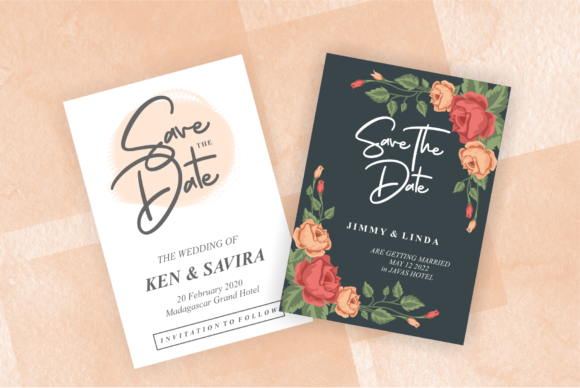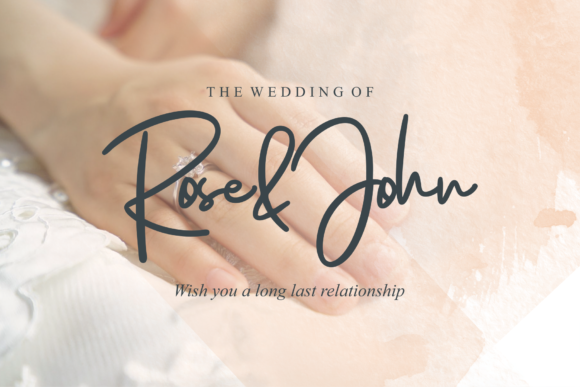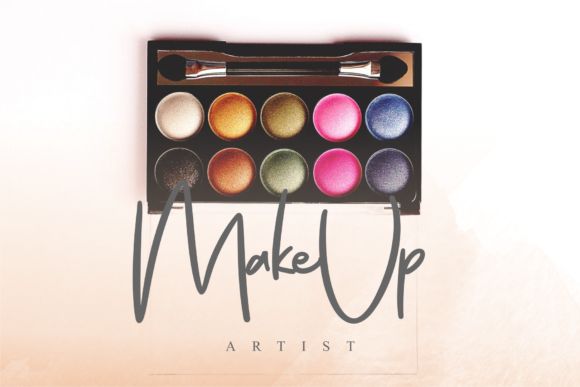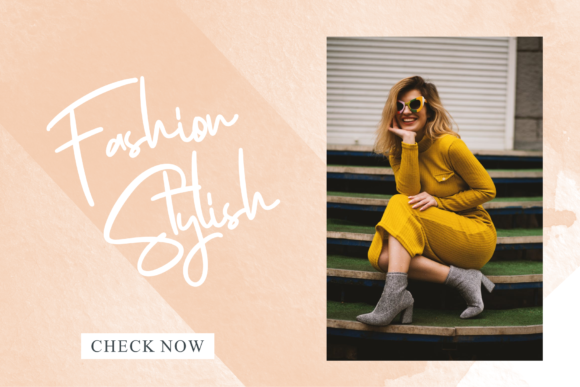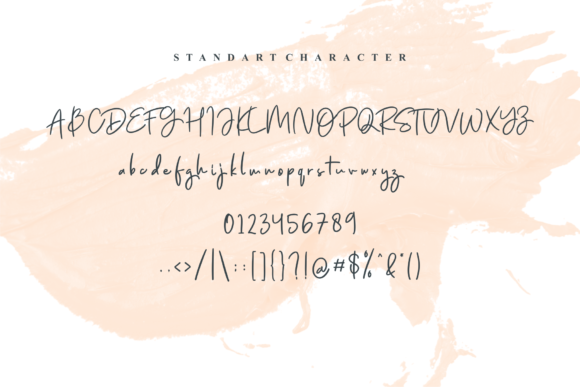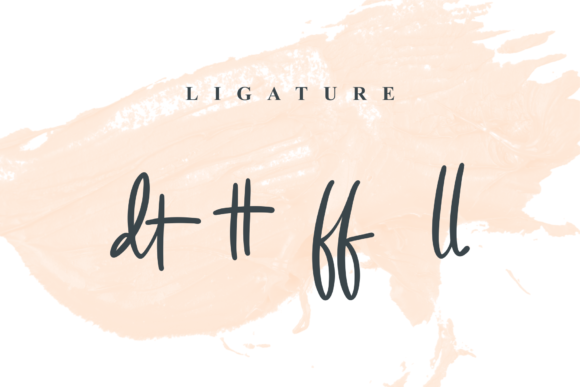
Introduction to Jenifa Font
The Jenifa is modern, feminine script.
The Jenifa is modern, feminine script. Every letter has been carefully crafted to give your designs an elegant feel